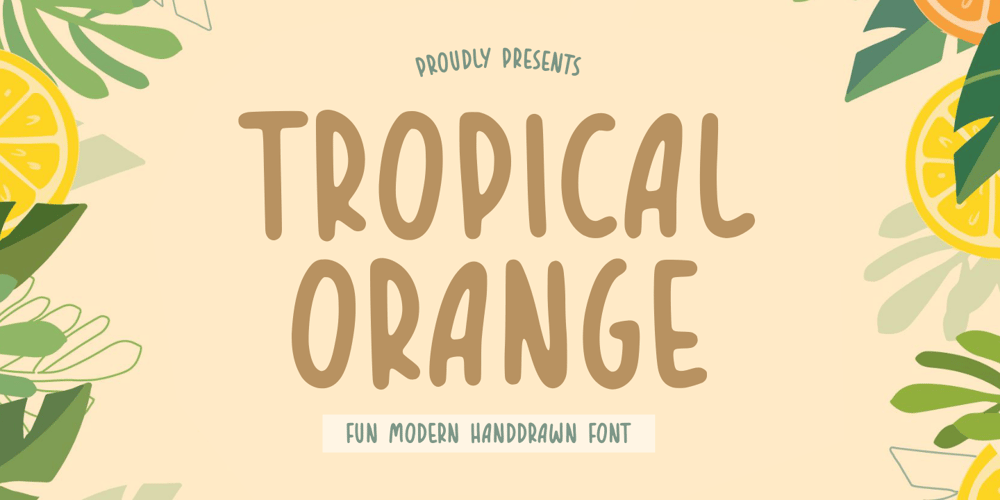
Tropical Orange Font Family was designed by Restu Angga and published by Balpirick. Tropical Orange contains 1 styles and family package options. TROPICAL ORANGE is a Fun Modern Handdrawn Font.Tropical Orange is a fun handwritten font. This font is perfect for product packaging, branding project, megazine, social media, wedding, or just used to express words above the background.TROPICAL ORANGE also multilingual support.Enjoy the font, feel free to comment or feedback, send me PM or email.Thank you!